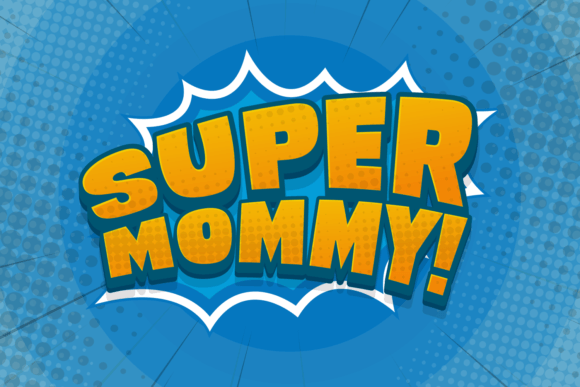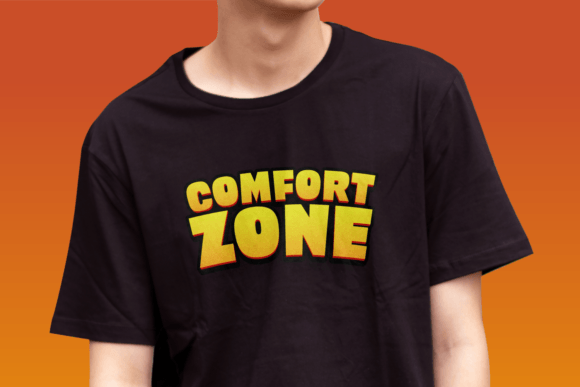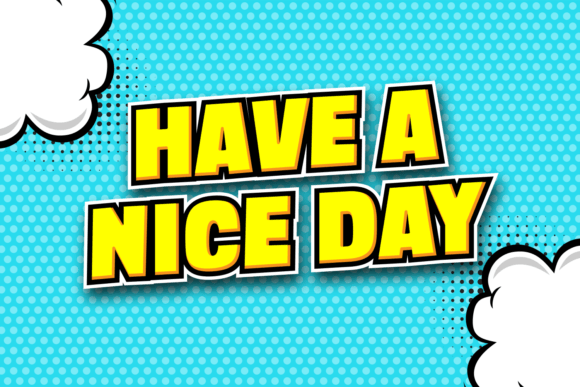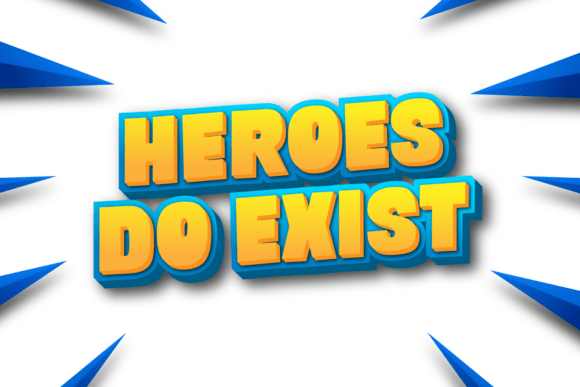
Introduction to Heroes Do Exist Font
Heroes Do Exist is a fun and stylish comic-inspired display font.
Get inspired by this chunky set of characters and use it in your next creative project It looks perfect on posters, book covers, headlines, t-shirts, games, and more.
Heroes Do Exist Font offers exceptional quality and versatility, making it a valuable addition to your design toolkit. Whether you’re creating for personal projects or commercial use, Heroes Do Exist Font delivers professional results.